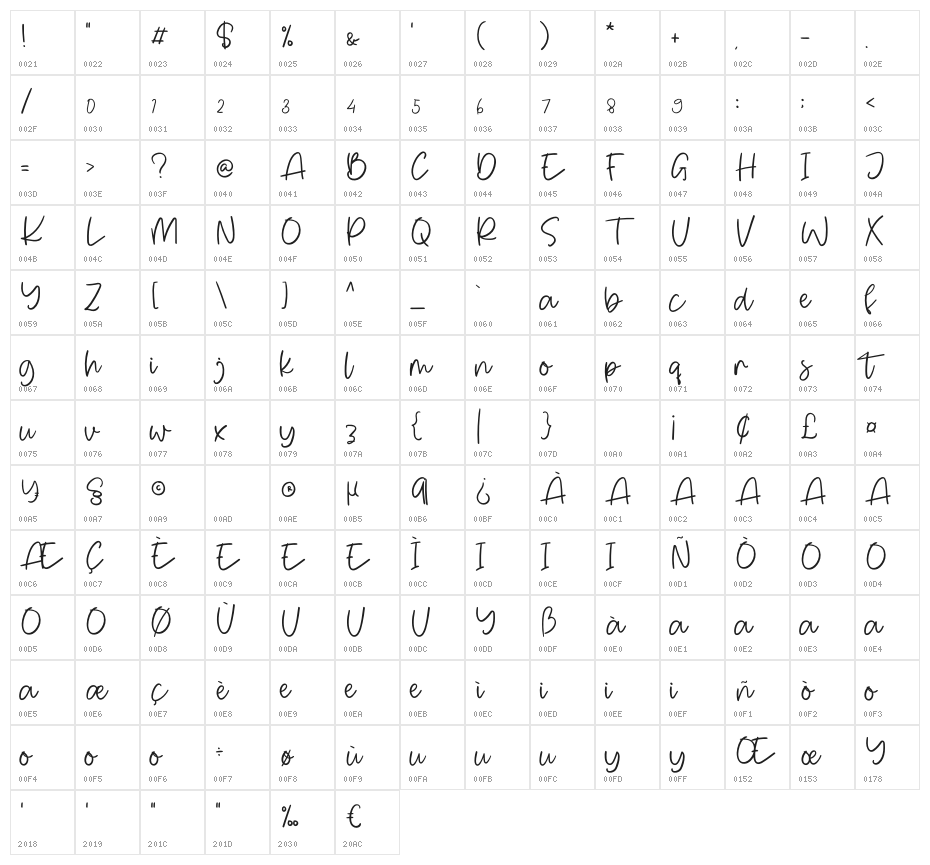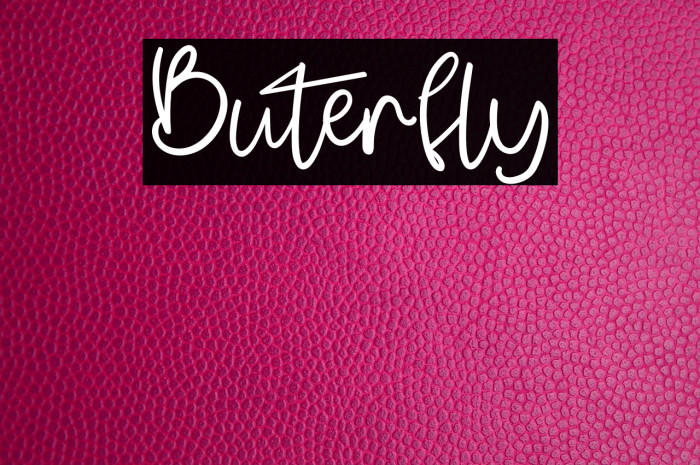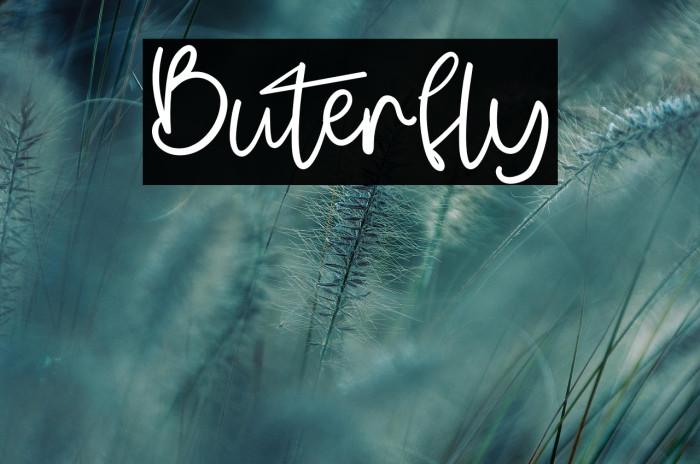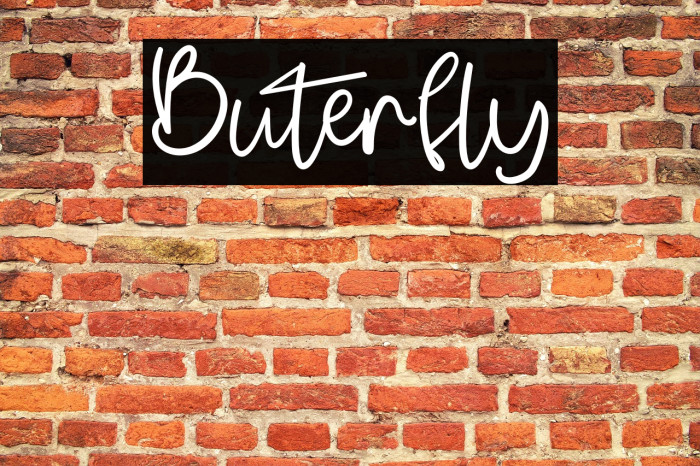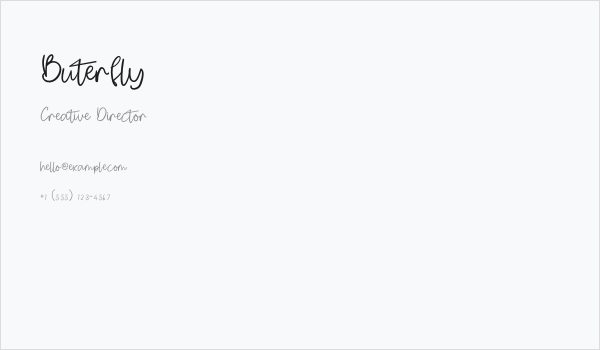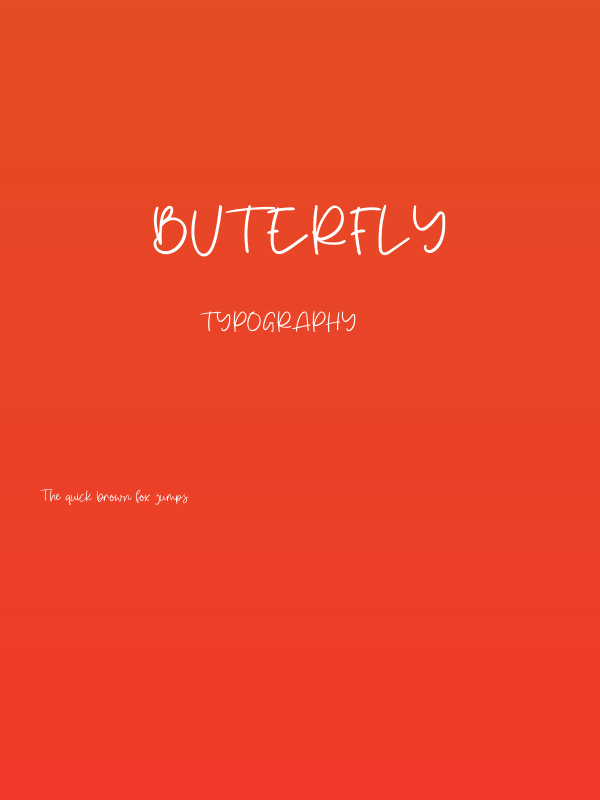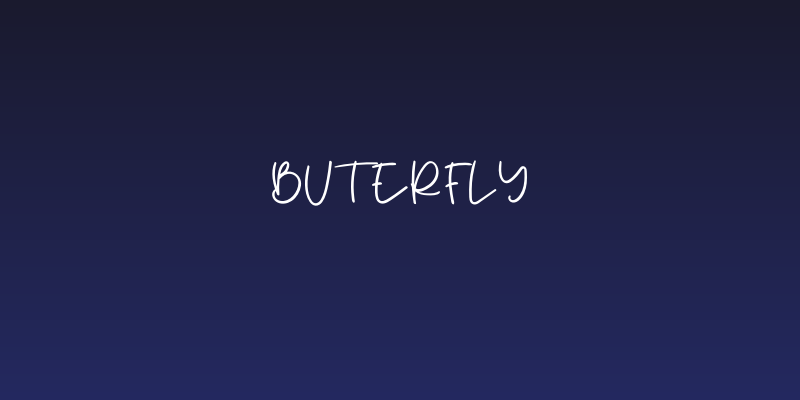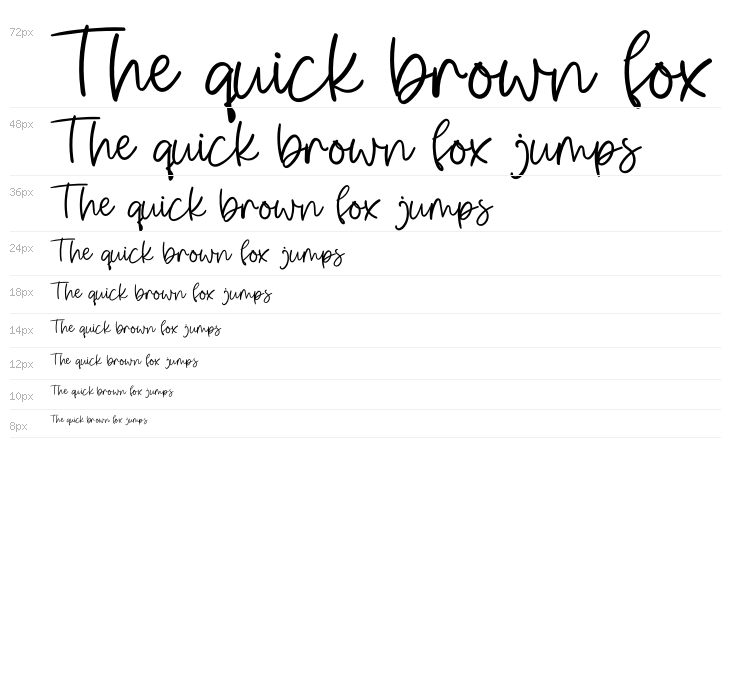
Buterfly Font
Buterfly Description
This font features a playful and casual handwritten style, characterized by its fluid and natural strokes. The uppercase letters are tall and slightly narrow, with a consistent slant that adds a dynamic feel. The lowercase letters are more rounded and connected, mimicking a natural handwriting flow. The numerals are clear and legible, maintaining the handwritten aesthetic. Special characters are integrated seamlessly, enhancing the font's versatility. Overall, this font exudes a friendly and approachable vibe, making it suitable for a variety of informal and creative applications.
| Use Case | Logos, Headlines, Informal Text |
| Proposed Projects | Ideal for greeting cards, personal branding, social media graphics, and informal invitations. |